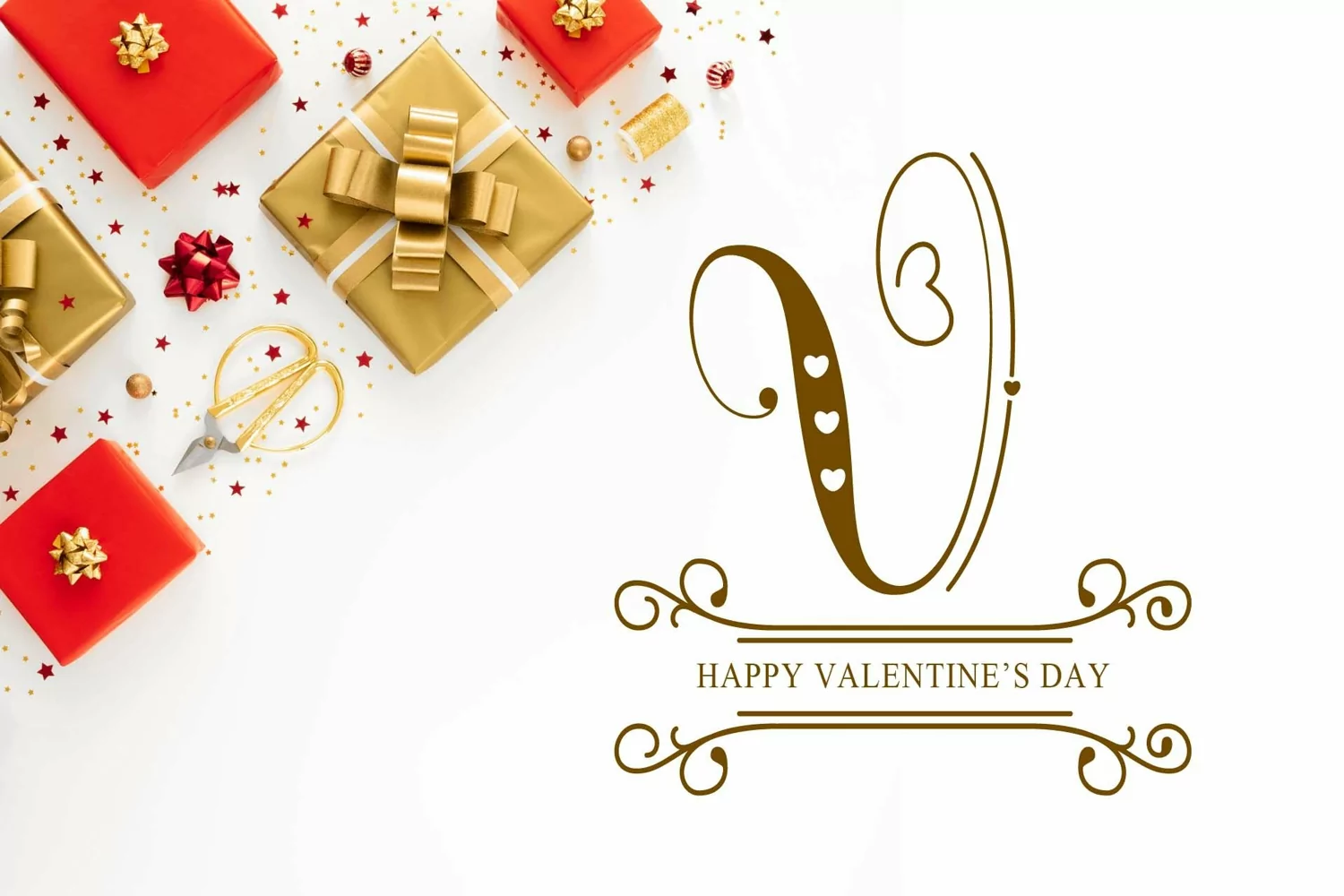
Babylove Monogram is a beautiful monogram. Use it to add a romantic and sophisticated touch to your designs. It’s perfect for valentine's moments !
Babylove Monogram